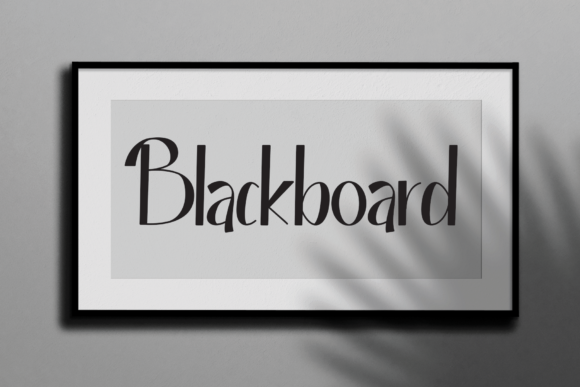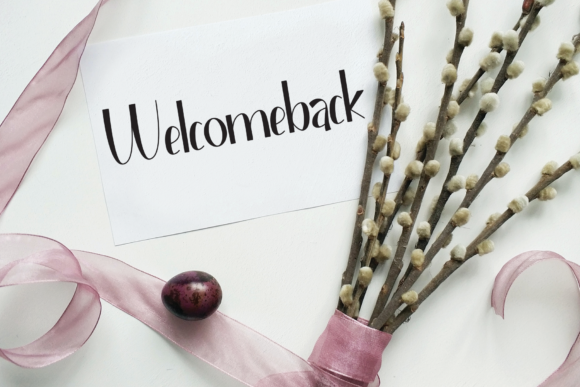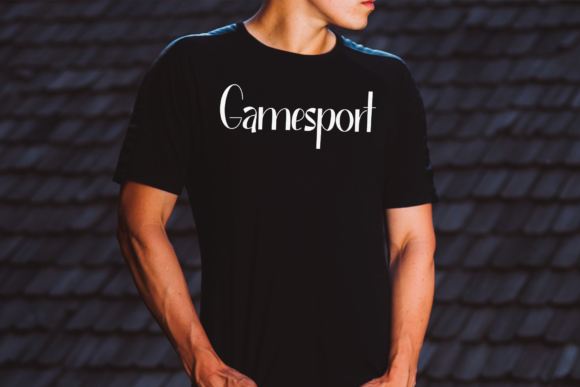
Introduction to Sagatha Font
Have you ever stared at a blank canvas, waiting for inspiration to strike? The blank page can be daunting, but sometimes it’s exactly what we need to spark creativity. For designers, finding the perfect font can be the difference between a mediocre and a remarkable design. That’s where the Sagatha Font comes in – a sweet and modern handwritten font that adds a fun and friendly touch to any project.
With its soft, high-quality design, the Sagatha Font is a valuable resource for designers looking to elevate their creative projects. Whether you’re working on a design project or need a font for a free download, the Sagatha Font is a great choice. Its transparent background makes it easy to layer and customize, giving you complete control over your design. In this article, we’ll dive deeper into the features and benefits of the Sagatha Font, and explore why it’s a must-have for any design resource.
Key Features of Sagatha Font
- Unique characteristics include elegant lines, rounded edges, and a modern aesthetic
- Perfect for use in logos, typography, and branding materials
Honest Review: Sagatha Font
As a designer, I’ve had the opportunity to work with a variety of fonts, but the Sagatha Font is definitely a standout. I downloaded it for a recent creative project, and I was blown away by its high quality and versatility.
What works well: ✨ The Sagatha Font has a unique, hand-drawn feel that adds a touch of elegance to any design. The font is highly customizable, with a range of styles and weights to choose from. I also appreciate the transparent background option, which makes it easy to layer the font over images or other design elements.
What doesn’t work so well: ⚠️ While the Sagatha Font is generally easy to use, I did encounter some issues with font sizes and spacing. It’s also worth noting that the font may not be suitable for very large or complex designs.
Overall, I’m thoroughly impressed with the Sagatha Font. It’s a great addition to any design resource, and I would highly recommend it to other designers. With its high quality, versatility, and free download option, it’s a must-have for any creative project.
- Unique, hand-drawn feel
- Highly customizable
Sagatha Font
The Sagatha Font is a high-quality design resource ideal for creative projects. With a transparent background, it offers endless possibilities for customization and flexibility.
Tips for Getting the Most Out of Sagatha Font
To get the most out of the Sagatha Font, experiment with different font sizes, colors, and styles. Combine it with other design elements to create visually appealing designs.
The Sagatha Font is ideal for various creative projects, including logos, branding materials, and marketing materials. Its high-quality design and transparent background make it a versatile resource for designers and non-designers alike.
Q: What is the recommended font size and style for optimal readability with the Sagatha Font?
For optimal readability, we recommend using the Sagatha Font at a minimum size of 12 points, with a clear and legible style. You can experiment with different font sizes and styles to find the perfect balance for your specific design project.